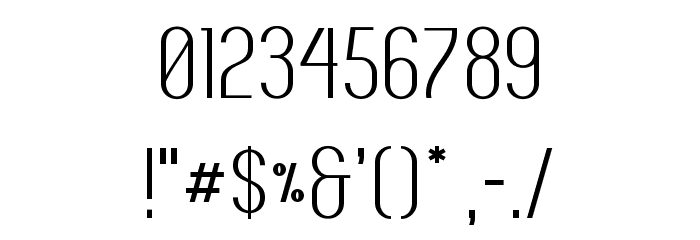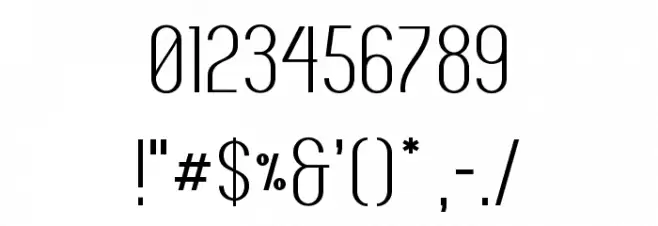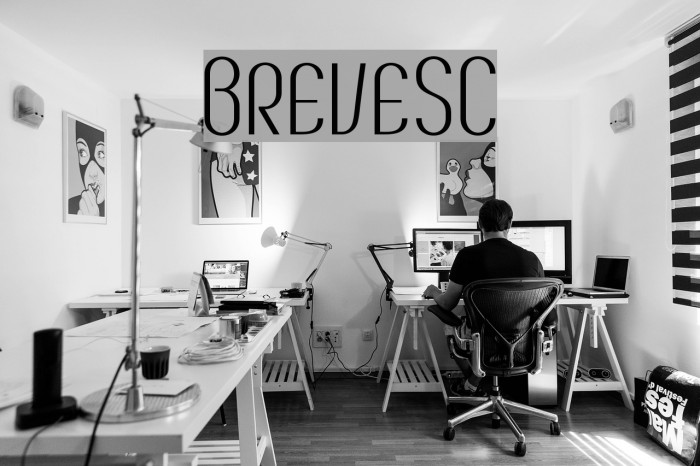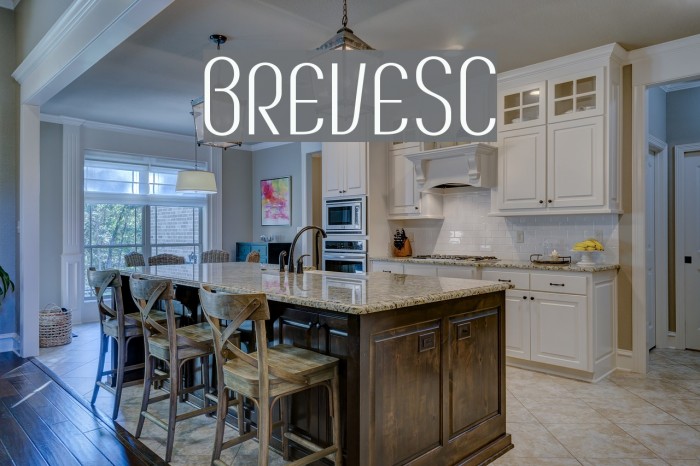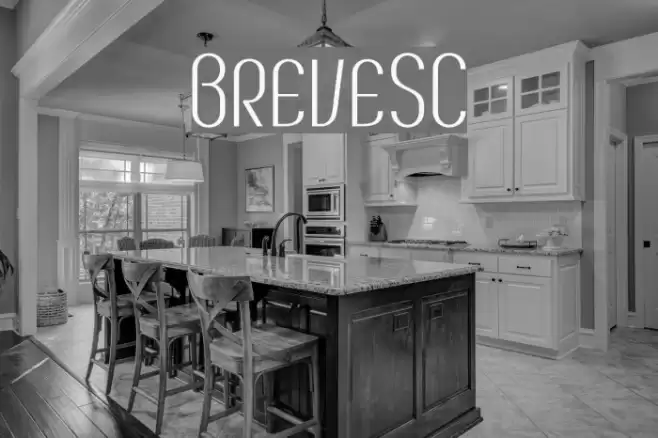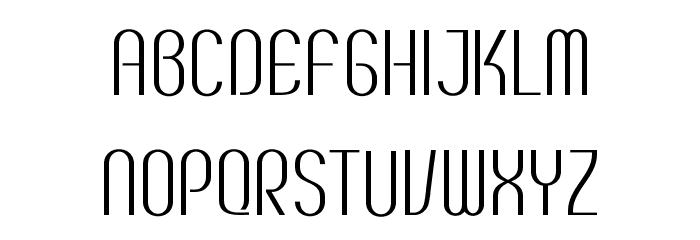
BreveSC Font
BreveSC Description
This font features a sleek and modern design with elongated, narrow characters that give it a distinctive and stylish appearance. The uppercase and lowercase letters maintain a consistent height, creating a uniform look. The numerals are clear and easy to read, complementing the overall aesthetic. Special characters are well-defined, adding versatility to the font. Its clean lines and minimalistic style make it suitable for contemporary design projects.
| Proposed Projects | Ideal for branding, editorial design, fashion magazines, and modern web design. |